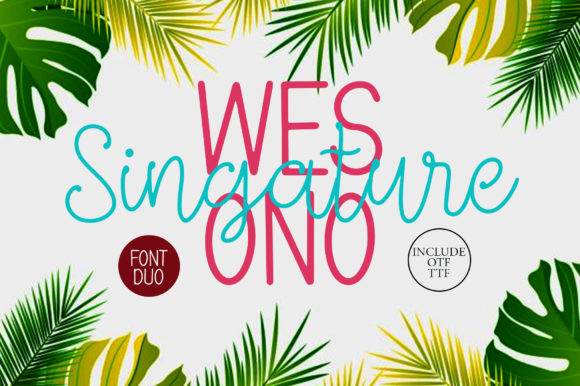
Wesono Singature Font
In a world where aesthetics reign supreme, let Wesono Singature Font be your muse, your artistic compass, guiding you towards design brilliance. Born from the creative vision of Choirulcreator, this script font duo is a symphony of elegance and versatility, ready to transform your projects into breathtaking masterpieces.
Wesono Singature Font is not just a collection of letters; it's a gateway to a world of endless creative possibilities. Its meticulously crafted characters dance upon the page, harmonizing perfectly to create a visual symphony that will leave your audience spellbound. With its delicate curves and graceful strokes, Wesono Singature Font captures the essence of romance, making it the perfect choice for wedding invitations, save-the-dates, and any occasion where love is in the air.
Imagine your wedding vows, penned in the graceful lines of Wesono Singature Font, becoming a timeless keepsake, a tangible symbol of your enduring love. Or picture your brand logo, adorned with the sophisticated charm of Wesono Singature Font, exuding confidence and professionalism that sets you apart from the ordinary.
The beauty of Wesono Singature Font lies in its versatility. Its dual nature, a harmonious blend of script and handwritten styles, allows you to effortlessly switch between formal elegance and casual charm. Whether you're crafting a heartfelt letter, designing a captivating poster, or creating a stunning social media post, Wesono Singature Font will elevate your words, transforming them into visual works of art.
With Wesono Singature Font, you hold the key to unlocking a world of creative magic. Its endless variations invite you to experiment, to push the boundaries of your imagination, and to create designs that resonate with your soul. Embrace the allure of Wesono Singature Font and embark on a journey of artistic self-expression that will leave you and your audience breathless.